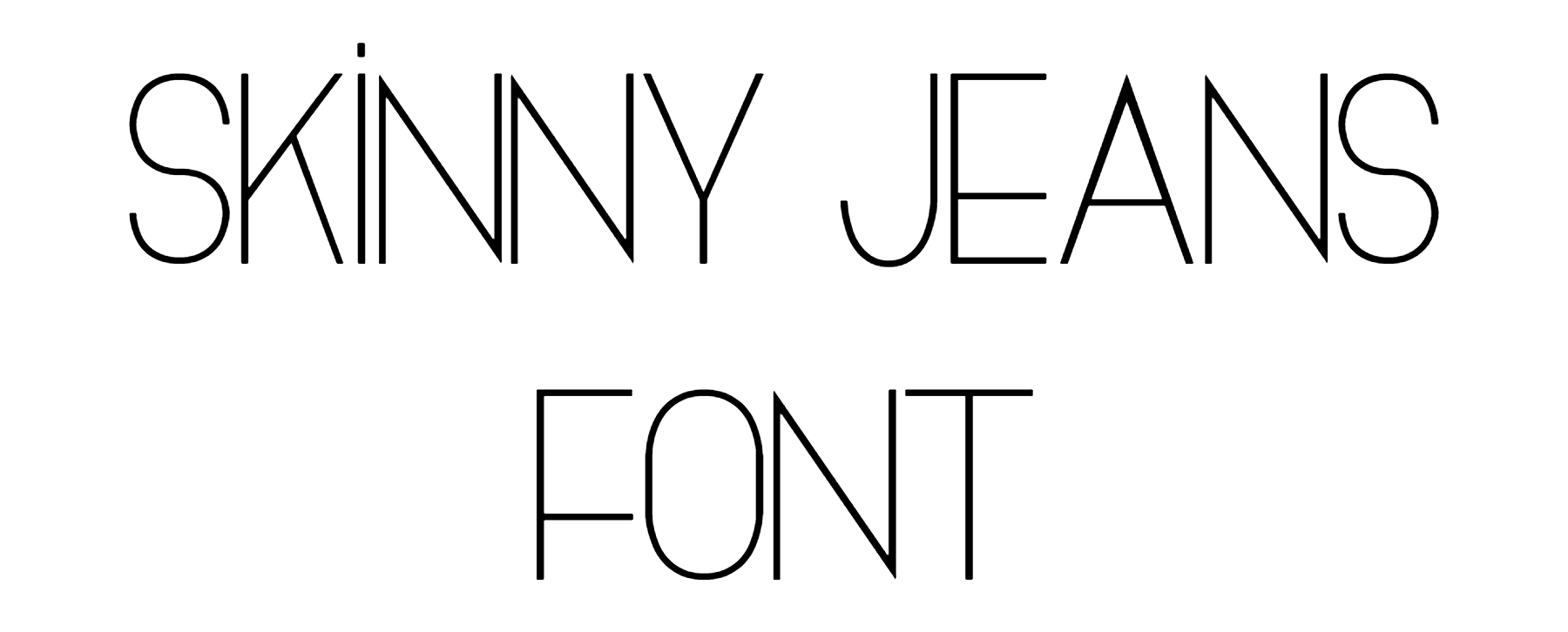
Skinny Jeans Font Preview
Skinny Jeans
Skinny Jeans is a sans serif font designed by Chris Vile and published by Font Monger (2016). Simple, open letter shapes keep it easy to read at almost any size, from app buttons to big headlines. You can download it for free and test it with your own words in the preview above.
In the notes inside the font file, Chris Vile describes it like this: “Skinny Jeans Regular is a font by Font Monger, designed by Chris Vile in 2016.”
What You Can Type With Skinny Jeans
You get every letter from A to Z in both cases and all the numbers from 0 to 9, which means Skinny Jeans can handle full sentences, dates and prices. Everyday marks like ! and ? are there too. There are no accented letters like é or ñ, so it's best kept to English text.
Where Skinny Jeans Works Best
Designers usually reach for fonts like Skinny Jeans when they're making websites, app screens and clean logos. Its lowercase letters are tall compared to the capitals, which keeps it readable at smaller sizes. The file has no kerning data, so in logos and big titles check pairs like AV, To and Wa and tighten the spacing by hand. It works for headings and body text alike. If the download has several weights, use a heavier one for titles and a lighter one for paragraphs.
Who designed Skinny Jeans font?
Skinny Jeans was designed by Chris Vile and published by Font Monger. The copyright line inside the font is dated 2016. DafontStyle has 20 more fonts by Chris Vile, and a few are linked above.
Does Skinny Jeans support accented letters?
No. Skinny Jeans has no accented letters such as é, ñ or ü, so it's best for English text.